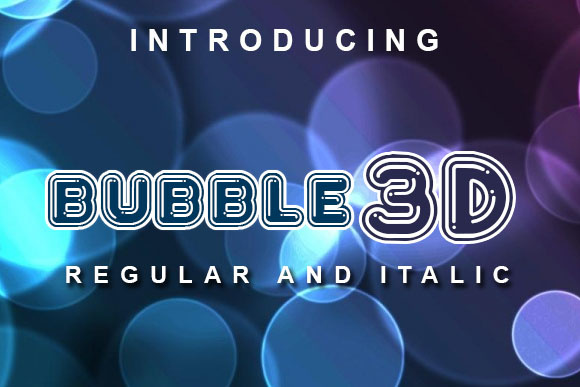
The Ultimate Guide to Bubble 3D Font: Elevate Your Designs with This Stunning Bubble-Style Font
I’ll never forget the time I was working on a project for a client who needed a bold, eye-catching font to grab attention. I spent hours scouring the internet for the perfect font, but nothing seemed quite right. That was until I stumbled upon the Bubble 3D Font. It’s a game-changer! 💥
Bubble 3D is a stunning bubble-style font that suits best with banners, headlines, t-shirts, and much more. Its unique 3D effect adds a touch of fun and playfulness to any design, making it perfect for creative projects.
An Honest Review of Bubble 3D Font
- ✨ Unique 3D effect that adds depth and visual interest to designs
- ✅ Highly versatile and can be used for a wide range of projects, from banners to t-shirts
- 💥 Easy to read, even in larger sizes
While Bubble 3D Font is an amazing font, there are a few things to keep in mind:
- 🤔 May not be suitable for body text or smaller font sizes, as the 3D effect can be overwhelming
- ⚠️ Limited to uppercase letters and basic punctuation, which may limit its use in certain designs
The Designer Inspiration Behind Bubble 3D Font
Bubble 3D Font was inspired by the classic bubble-style fonts of the 80s and 90s. Its creator, a freelance designer with a passion for retro aesthetics, wanted to create a font that would bring a touch of nostalgia and fun to modern designs.
Q: What is the Bubble 3D Font?
A: The Bubble 3D Font is a stunning bubble-style font with a unique 3D effect, perfect for creative projects and designs.